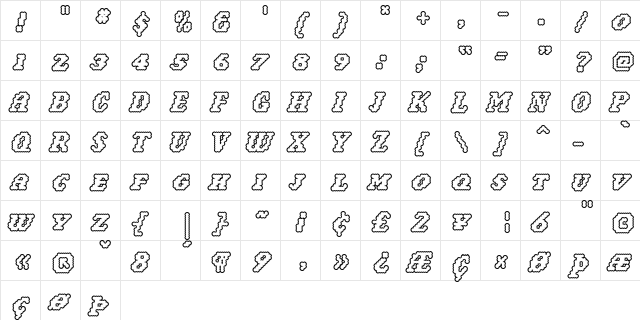
NarlyOutline Regular
| Foundry | Emigre Graphics, Designed by Zuzana Licko |
Design Context for NarlyOutline Typeface
NarlyOutline is built around its visual character rather than neutral utility — its distinctive forms are designed to make an impression at display sizes.
Font Pairing: Pair with a clean neutral sans-serif for body copy to let NarlyOutline's character lead without overwhelming the composition.
Pro Tip: Treat NarlyOutline as the centrepiece of your typographic hierarchy. One strong heading set in a decorative face can carry an entire layout.